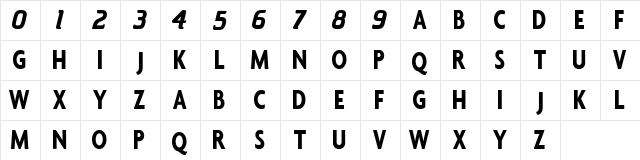
MLB Blue Jays Modern Regular
Design Context for MLB Blue Jays Modern Typeface
MLB Blue Jays Modern is a composed and adaptable typeface that performs quietly and consistently across a wide range of design contexts.